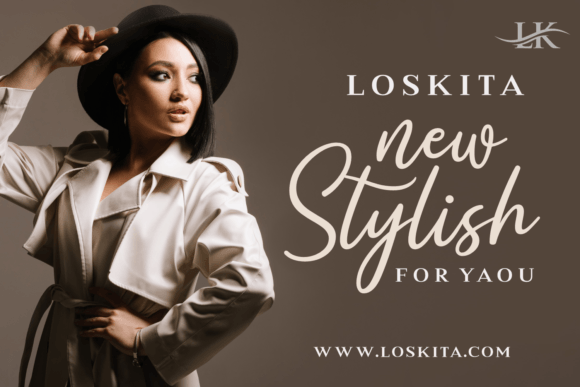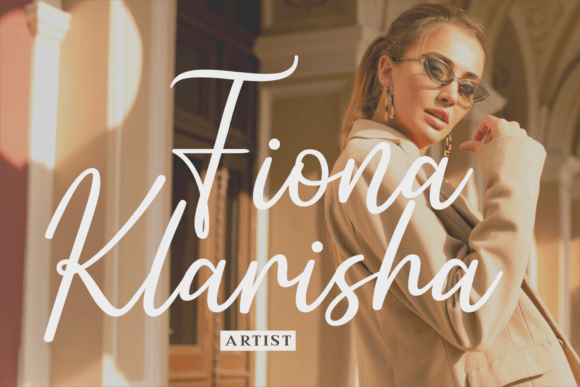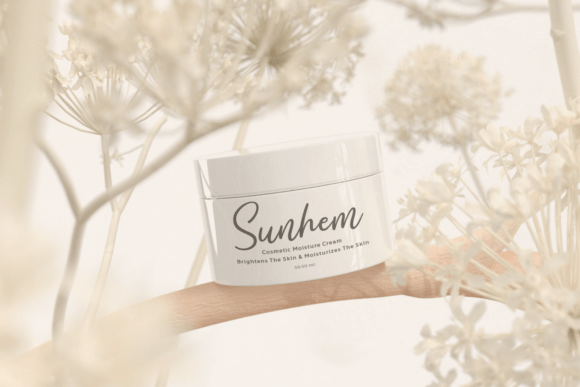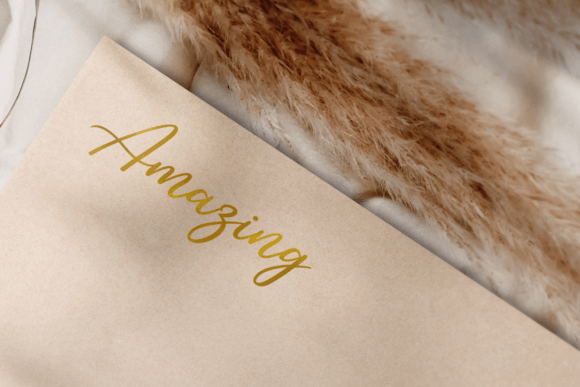
Introducing Antry Font: Elevate Your Designs with Elegance and Sophistication
In the world of typography, a font can make all the difference in transforming a design from ordinary to extraordinary. For designers and crafters seeking to infuse their creations with a touch of elegance and sophistication, Antry Font is an exceptional choice. This beautiful script font is designed to bring a chic and dreamy aura to your typography designs, making it perfect for a wide range of applications.
The Beauty of Antry Font
Antry Font is a graceful and elegant script font that exudes refinement and poise. Its flowing lines and curves create a sense of movement and fluidity, making it ideal for designs that require a touch of sophistication. Whether you’re creating stylish logos, tags, labels, invitations, cards, or any other typography design, Antry Font is sure to impress.
One of the standout features of Antry Font is its versatility. Its elegant design makes it suitable for a wide range of projects, from wedding invitations and stationery to branding and advertising materials. The font’s dreamy aura also makes it perfect for designs that require a touch of whimsy and romance.
Key Features of Antry Font
So, what makes Antry Font so special? Here are some of its key features:
- PUA Encoding: Antry Font is PUA encoded, which means you can easily access all the glyphs and swashes. This feature makes it easy to customize your designs and add unique touches.
- Elegant Design: The font’s elegant design makes it perfect for creating sophisticated typography designs that require a touch of refinement.
- Versatility: Antry Font is versatile and can be used for a wide range of projects, from logos and branding materials to invitations and stationery.
Why Choose Antry Font?
With so many fonts available, why choose Antry Font? Here are some reasons why designers and crafters love this beautiful script font:
- Unique and Exclusive: Antry Font is a unique and exclusive font that will set your designs apart from the rest.
- High-Quality Design: The font is designed with high-quality and precision, ensuring that it looks great in any design.
- Customize and Edit: Customize and edit your design as needed, using the font’s glyphs and swashes to add unique touches.
In conclusion, Antry Font is a beautiful and elegant script font that is perfect for designers and crafters seeking to infuse their typography designs with a touch of sophistication and elegance. With its PUA encoding, elegant design, and versatility, this font is sure to become a favorite in your design arsenal. Whether you’re creating stylish logos, tags, labels, invitations, cards, or any other typography design, Antry Font is an exceptional choice.